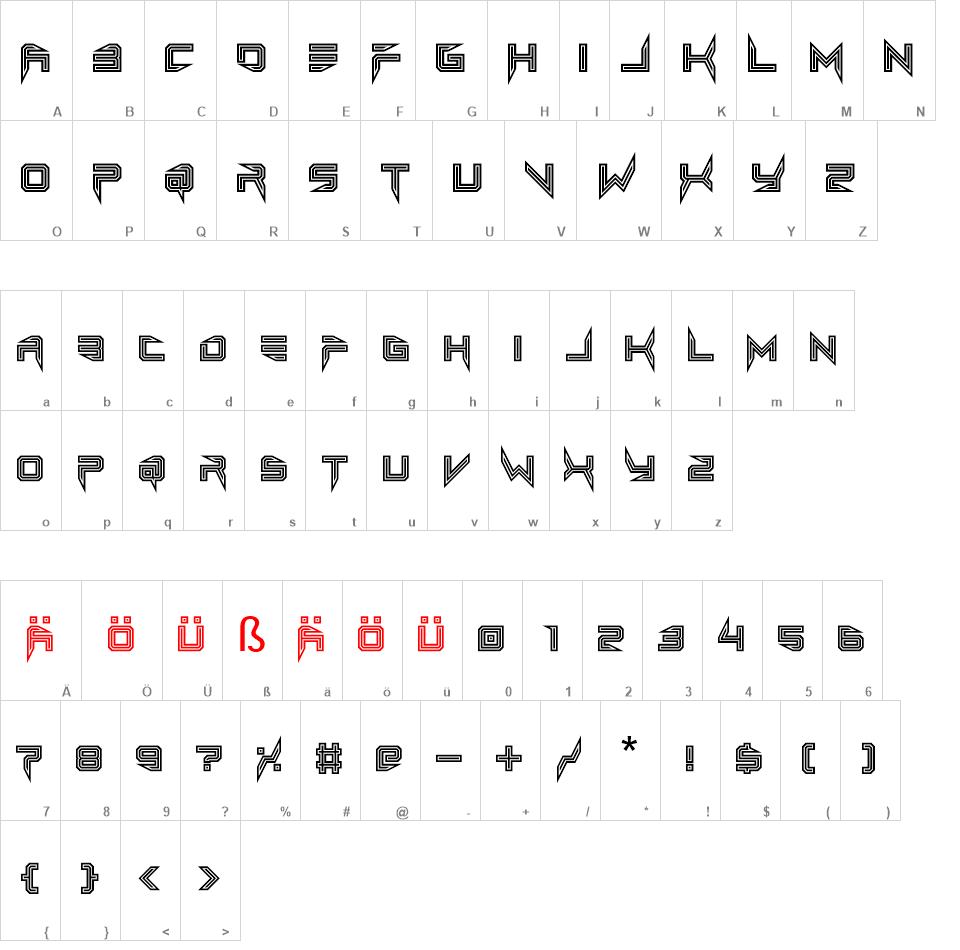
Lethal Injector
Lethal Injector font
Lethal Injector
Lethal Injector is a decorative font which comes in 3 weights also as layer: the inner part, outer part
and normal...